7 Top Bold Sans Serif Fonts
Finding the perfect balance between modern simplicity and commanding visual presence is key to making your brand stand out in a crowded market. To help you achieve this, we have handpicked 7 of the Top Bold Sans Serif Fonts available today. These exceptional typefaces are meticulously engineered to instantly elevate your brand identity, ensuring your messaging leaves a lasting, highly professional, and unforgettable impact across any digital screen or physical layout.
Mini Bold Sans Serif Font: A High-Impact Powerhouse
Command immediate attention and maximize your canvas space with Mini Bold, a towering, ultra-condensed powerhouse engineered to deliver unmatched visual volume. Boasting sleek, soaring letterforms and a highly energetic modern structure, this striking option serves as an incredibly confident addition to your curated library of Bold Sans Serif Fonts.
It is the absolute ultimate choice for designers looking to inject maximum attitude and sheer strength into their layouts. Whether you are crafting high-octane sports designs, bold event posters, prominent streetwear apparel, eye-catching editorial layouts, or a commanding corporate logo, this versatile Bold Font ensures your message cuts through the digital noise with absolute precision and crystal-clear clarity.
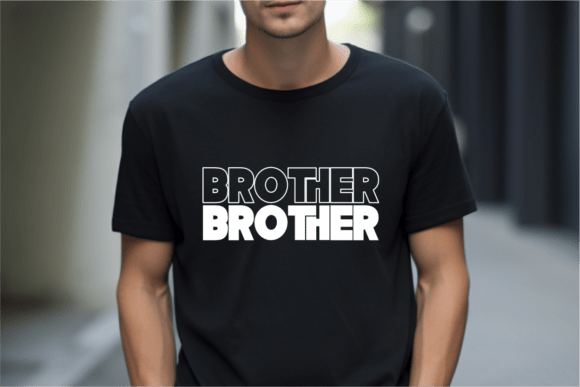
Gotkin Bold Font: A Sophisticated Powerhouse for Sans Serif Fonts Collectors
Elevate your visual narratives to the peak of contemporary elegance with Gotkin, a remarkably strong and dynamic typeface family designed to merge structural power with refined grace. Engineering a flawless balance between clean geometric precision and welcoming soft curves, this versatile design introduces an exquisite warmth to your professional collection of Sans Serif Fonts.
With an expansive range of weights stretching from delicate light to commanding black—alongside gorgeous italics, unique alternates, and a flexible variable version—it provides an incredibly adaptable canvas for modern creators. Whether you are crafting sleek digital interfaces, high-end editorial layouts, prominent packaging, or a highly authoritative corporate Bold Font statement, Gotkin guarantees pristine legibility and a commanding presence across both digital and print media.
Roadbay Inline Bold Condensed Font: A Dynamic Addition to Your Sans Serif Fonts Library
Ignite your layouts with a powerful sense of modern speed and athletic precision using Roadbay, a sleek and incredibly dynamic inline bold condensed typeface engineered to transform your visual narratives. Perfectly crafted for designers who are completely unafraid to make a powerful statement, this striking design embodies pure modernity and spatial efficiency. Its unique inline aesthetic adds a layer of unparalleled sophistication to your curated collection of Sans Serif Fonts, ensuring your text stands out with exceptional style.
By beautifully merging industrial strength with clean geometric precision, it offers a rare blend of high-end elegance and crystal-clear readability. Whether you are designing futuristic poster layouts, high-impact athletic branding, sleek digital interfaces, or a highly authoritative corporate Bold Font statement, Roadbay guarantees an unforgettable presence across both print and digital media. Bring this versatile powerhouse into your creative toolkit today and watch your custom compositions instantly command attention!
Kohilo Font: A Playful Powerhouse for Sans Serif Fonts Collectors
Unleash a wave of playful confidence and striking personality onto your creative canvas with Kohilo, a modern and remarkably expressive typeface designed to instantly steal the spotlight. By beautifully bridging the gap between a clean, professional layout and a vibrant display face, this eye-catching design serves as an incredibly fresh addition to your curated library of Sans Serif Fonts.
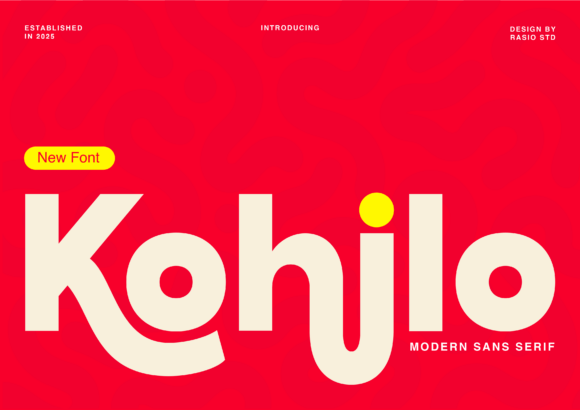
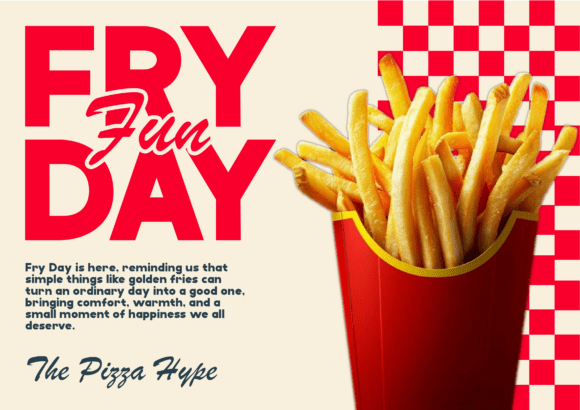
It features thick, commanding strokes perfectly balanced by exaggerated, liquid-like curves—most notably in its highly distinctive “h” and “j” letterforms. Whether you are developing cutting-edge tech branding, colorful toy and game packaging, high-impact social media headers, or a commanding corporate Bold Font statement, Kohilo guarantees an accessible yet highly contemporary presence across both print and digital media. Bring this high-energy powerhouse into your creative toolkit today and watch your modern compositions instantly come alive with pure style!
Metha Font: A Modern Rounded Masterpiece Sans Serif Fonts
Breathe an inviting sense of friendly warmth and contemporary confidence directly into your layouts with Metha, a modern rounded typeface engineered to offer an effortlessly approachable vibe. Sporting clean, bold lines with beautifully softened edges, this highly versatile design serves as a remarkably fresh and stylish addition to your curated library of Sans Serif Fonts.
Available in both Regular and Rounded styles, it features wide, beautifully balanced letterforms that guarantee outstanding readability alongside a soft, welcoming aesthetic. Whether you are crafting playful branding, impactful advertising campaigns, friendly social media headers, or a commanding corporate Bold Font statement, Metha performs flawlessly across both prominent display settings and clean body text. Bring this delightful powerhouse into your creative toolkit today and watch your modern designs instantly come alive with genuine charm!
Final Thoughts
Finding the perfect typographic voice is all about experimentation. The right Bold Sans Serif Fonts will instantly give your brand the modern strength and visual authority it deserves.